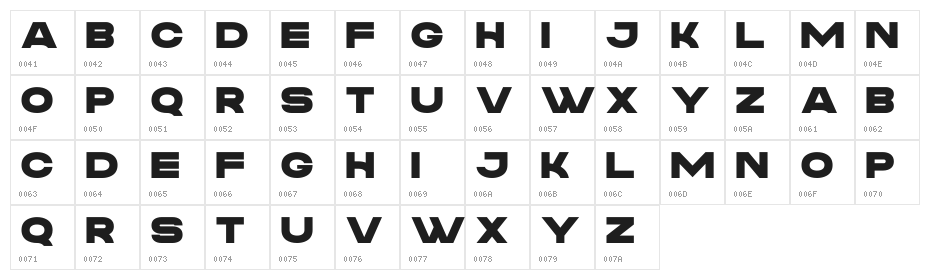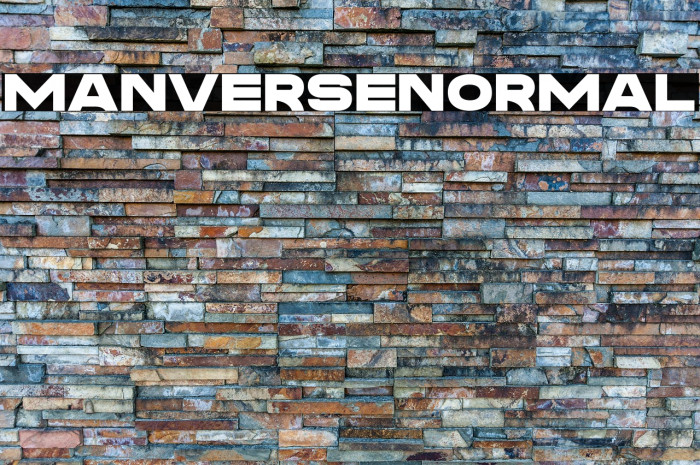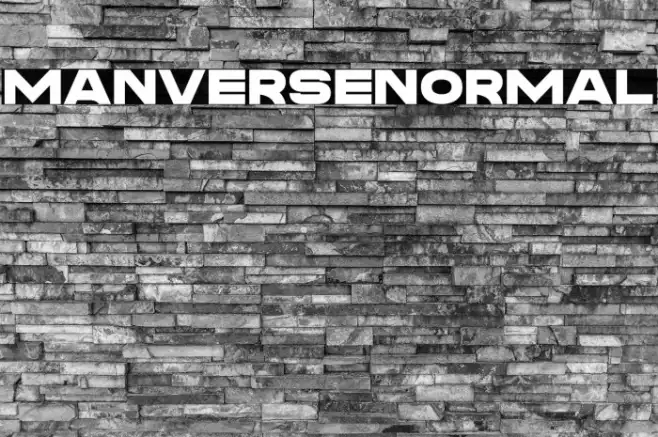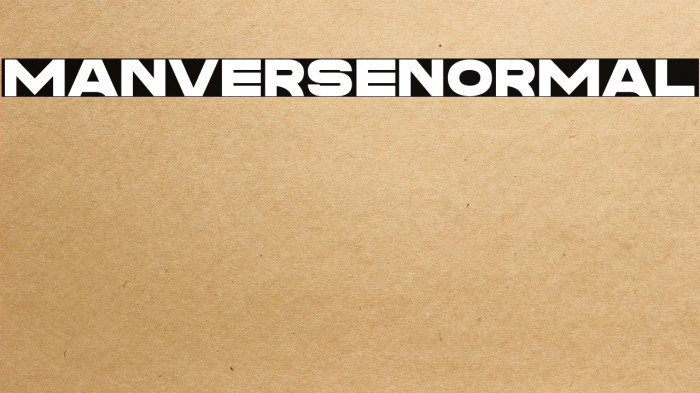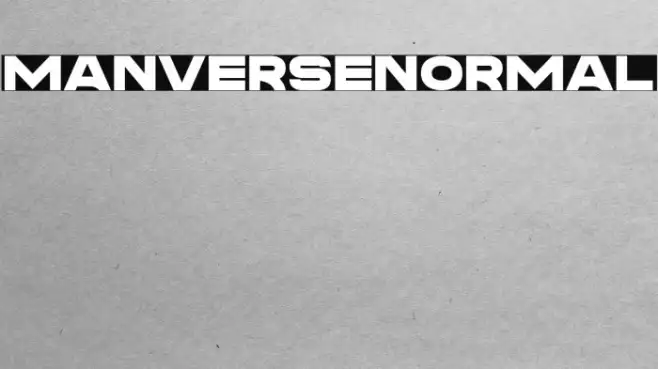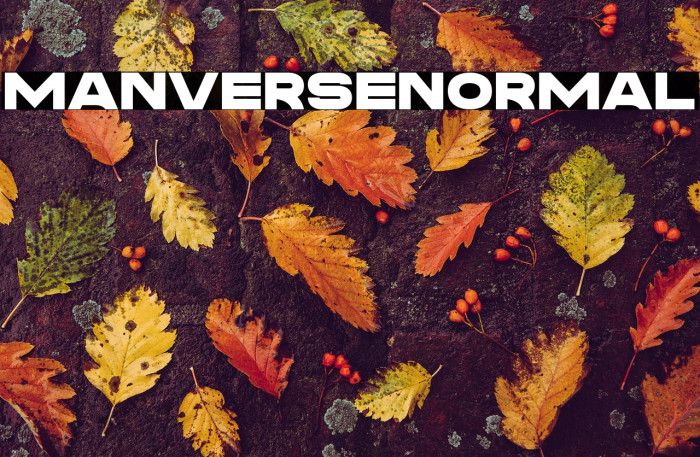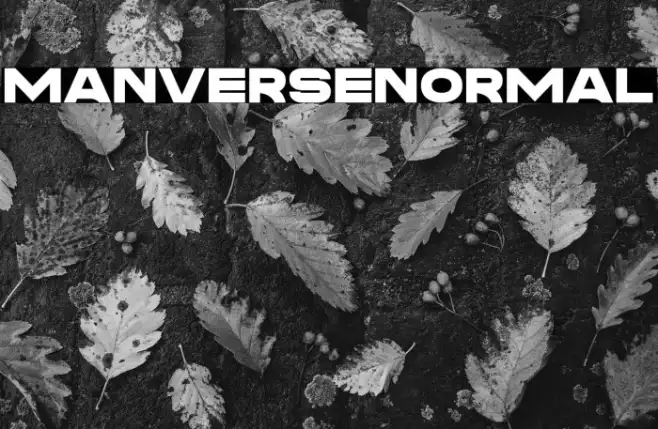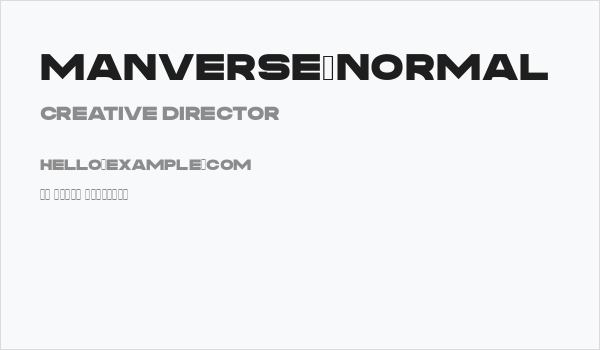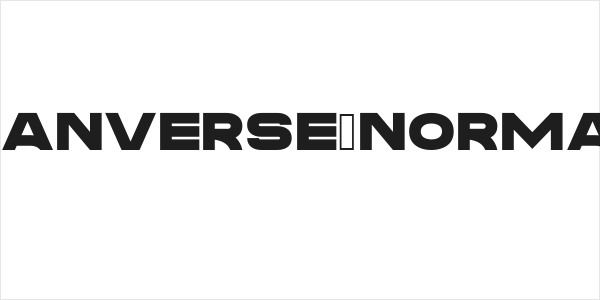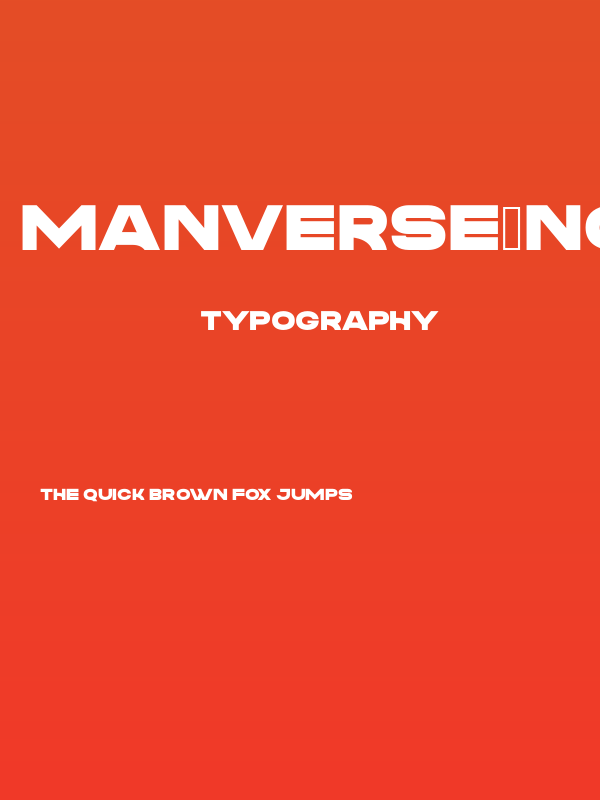
Manverse_Normal Font
Manverse_Normal Description
This font features a bold, geometric design with strong, angular lines and a modern aesthetic. The characters are uniformly wide, giving a sense of stability and strength. The uppercase letters are particularly striking, with a consistent height and width that create a cohesive look. The font's style is reminiscent of industrial and futuristic themes, making it suitable for projects that require a bold and impactful presence. The clean lines and lack of serifs contribute to its modern feel, while the uniformity in character design ensures readability and visual appeal.